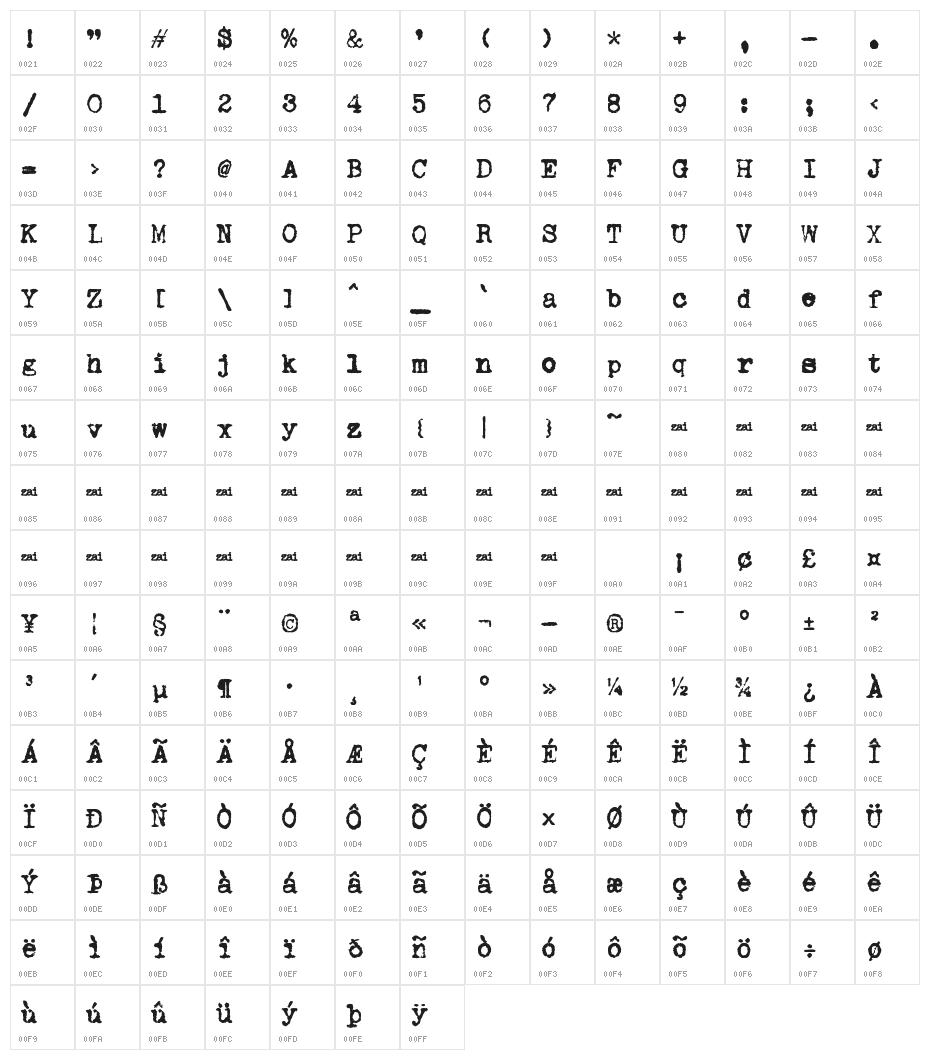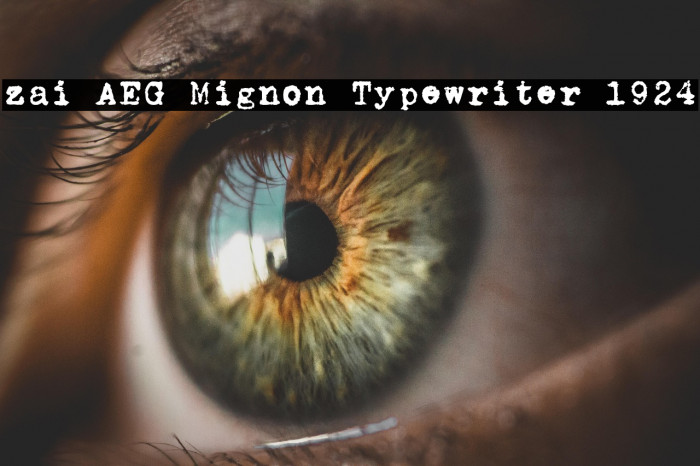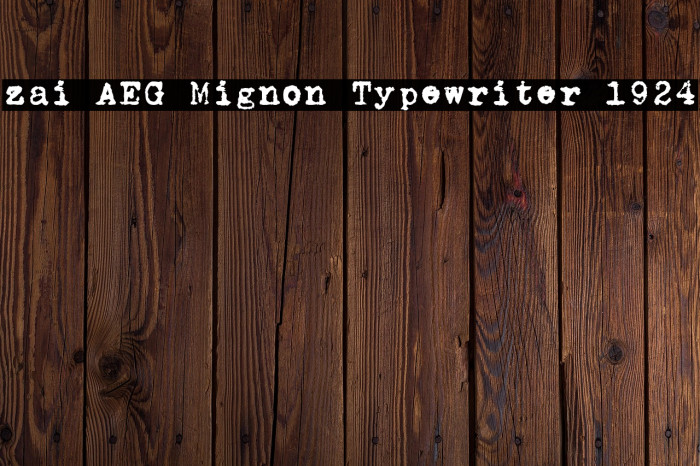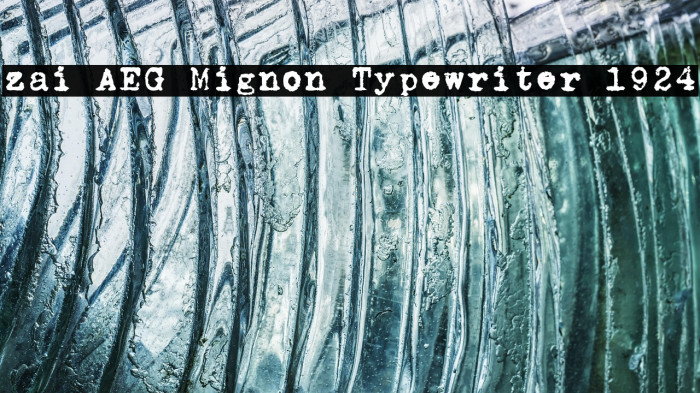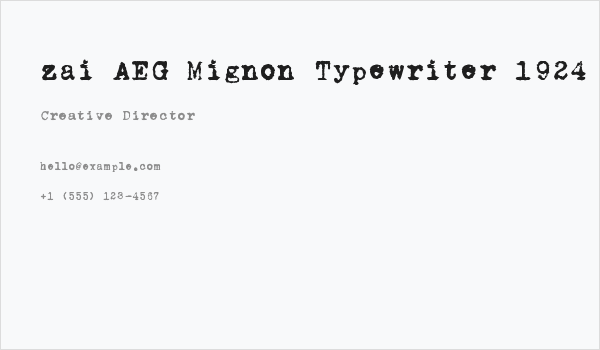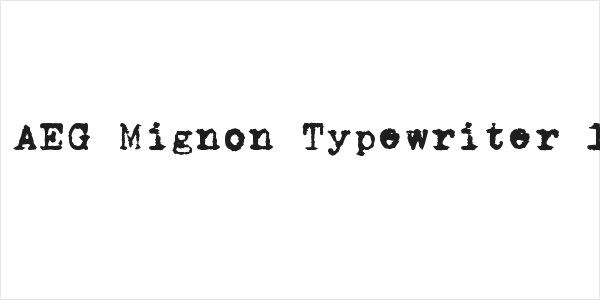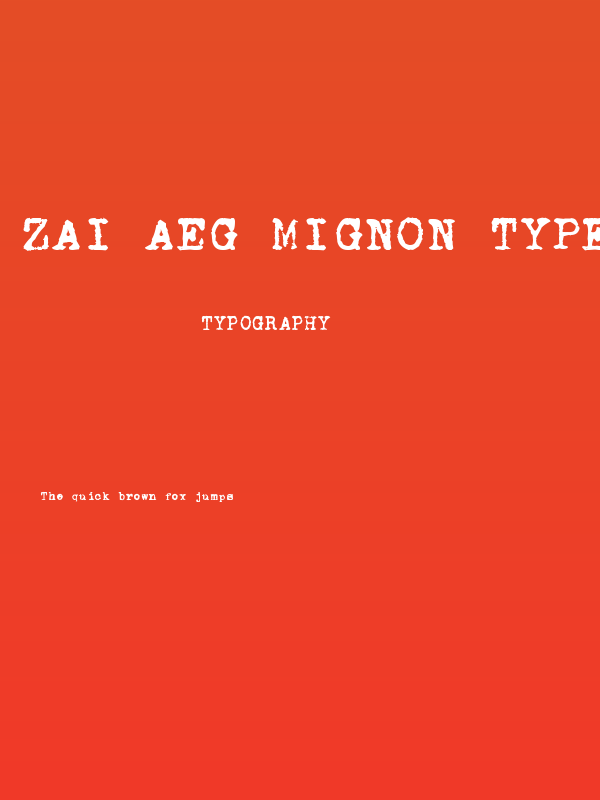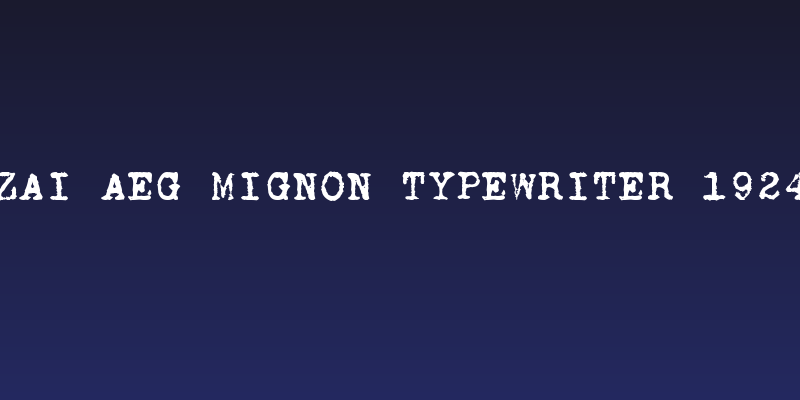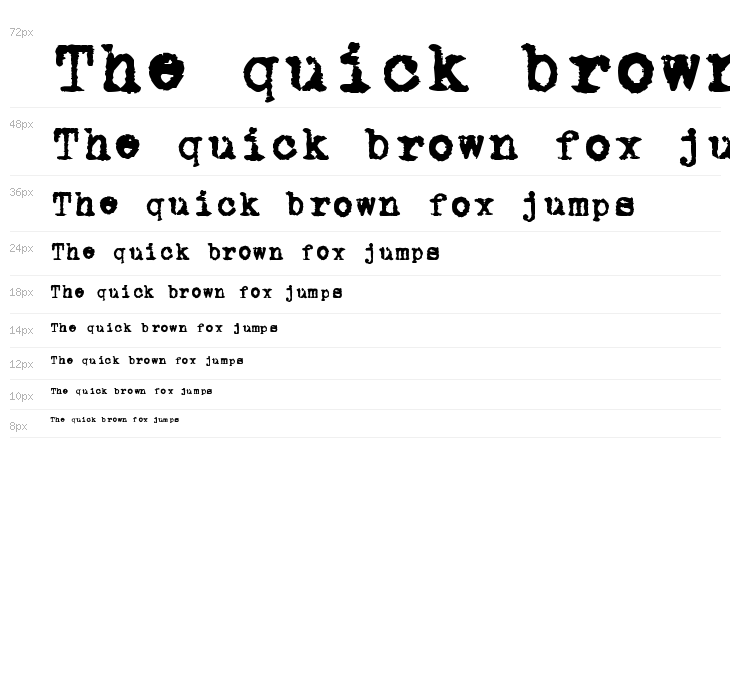
zai AEG Mignon Typewriter 1924 Font
zai AEG Mignon Typewriter 1924 Description
This typewriter-style font exudes a vintage charm reminiscent of early 20th-century mechanical typewriters. The characters are bold and slightly irregular, giving them a textured, distressed appearance that adds to their nostalgic appeal. Each letter and number is distinct, with a consistent weight that ensures readability while maintaining a unique, handcrafted look. The uppercase and lowercase letters are well-proportioned, and the numerals are clear and straightforward. The special characters retain the same rugged aesthetic, making this font versatile for various creative applications.
| Proposed Projects | Ideal for retro-themed designs, vintage posters, typewriter art, and creative projects that require a nostalgic touch. |